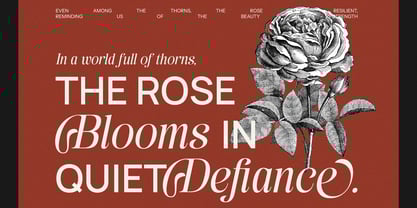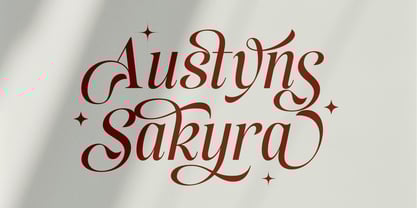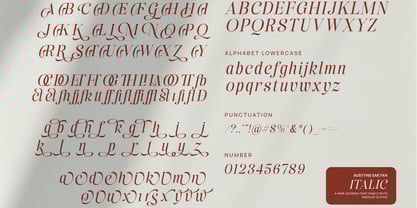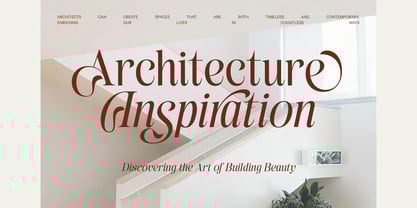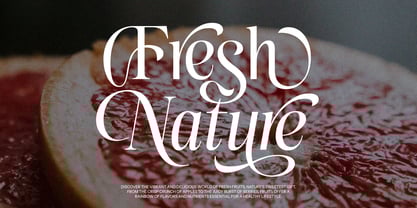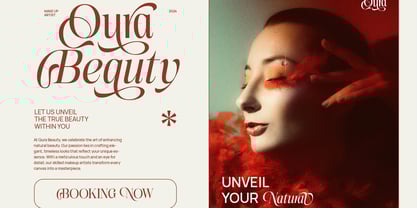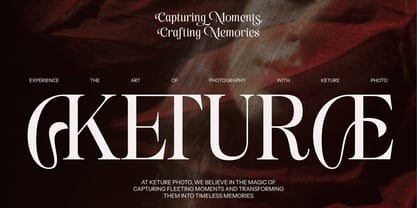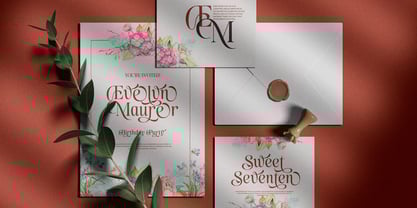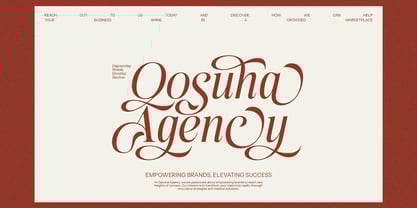
Austyns Sakyra
by Graphicxell
Austyns Sakyra Elegant Combination Font is a modern serif typeface that blends contemporary elegance with artistic detail. Designed with grace and sophistication in mind, this font offers both regular and italic styles, along with a rich selection of ligatures and stylish alternates that make your designs feel effortlessly refined.
Perfect for designers who crave a high-end aesthetic, Austyns Sakyra captures attention with its fluid curves, sculpted letterforms, and high readability. It seamlessly adapts across both print and digital platforms, making it ideal for branding, editorial layouts, packaging design, logo creation, fashion lookbooks, and luxurious advertising.
What makes Austyns Sakyra truly stand out is its charming alternate characters and elegant ligatures, offering endless customization opportunities. The stylish swashes and curve-rich alternates give your text a polished, calligraphic finish—perfect for upscale product labels, boutique signage, and artistic wedding invitations.
From minimalist websites to fashion-forward brand identities, Austyns Sakyra brings clarity, charm, and class to every project. The italic version introduces a soft romantic flair that’s especially suitable for quote designs, feminine branding, beauty products, and personal monograms.
Versatile yet distinctive, this font is not only a design tool but also a creative statement. Whether you're working on a refined magazine layout or creating a modern logo for a lifestyle brand, Austyns Sakyra adds a signature touch that is both timeless and modern.
If you're looking for a typeface that can seamlessly balance beauty with legibility, and style with structure, Austyns Sakyra is the perfect choice to elevate your next design.